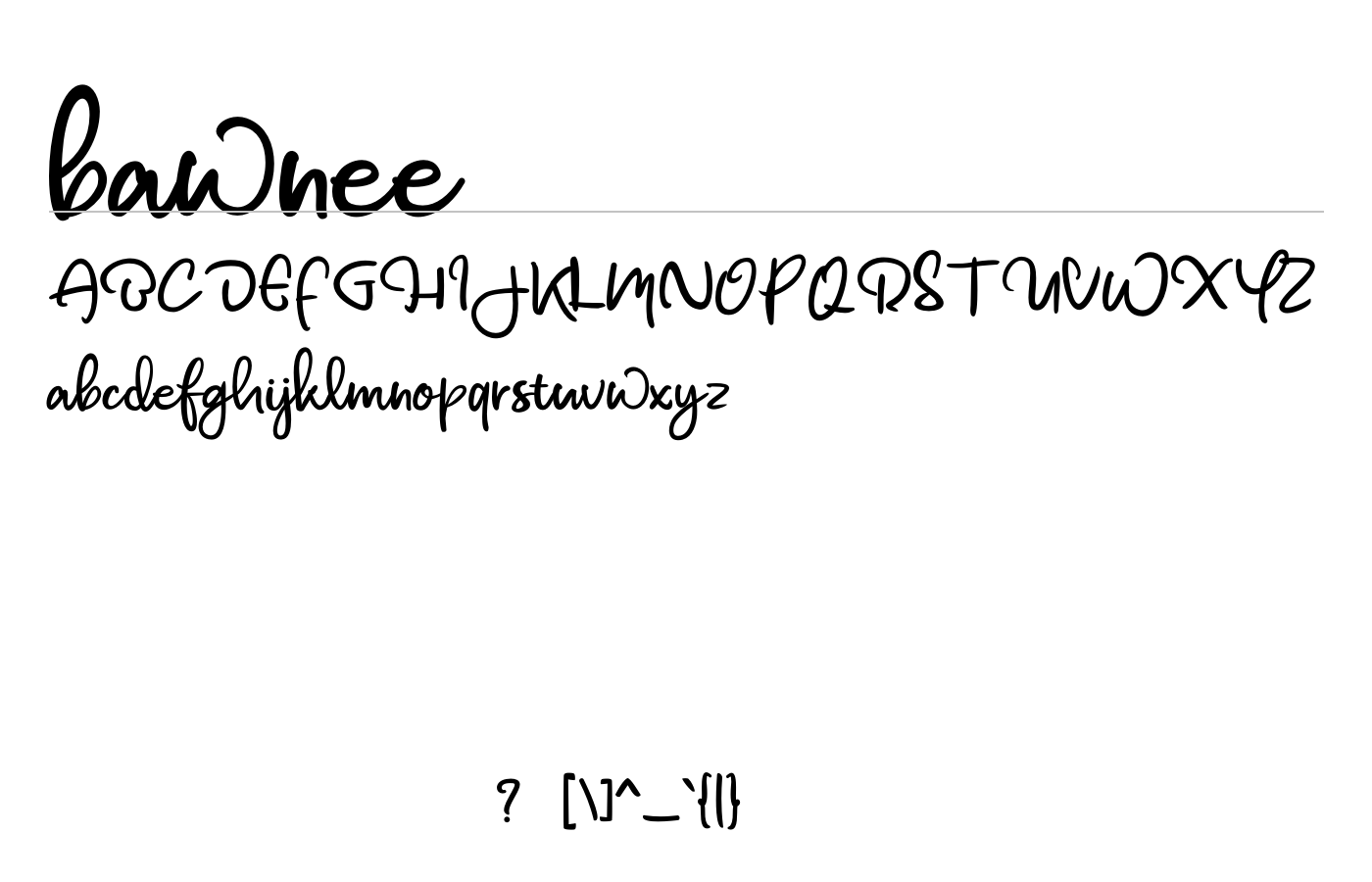
Bawnee is a playful and casual handwritten script font with a lively, flowing style that feels personal and approachable. Its smooth, rounded strokes and moderate contrast give it a friendly charm, making it perfect for creative projects, invitations, branding, or any design needing a warm, informal touch. This font shines best in logos, headlines, and packaging where a sense of personality and friendliness is desired.
bawnee Font
About bawnee Font
| Font family | bawnee Font |
| Designer | joko setiono |